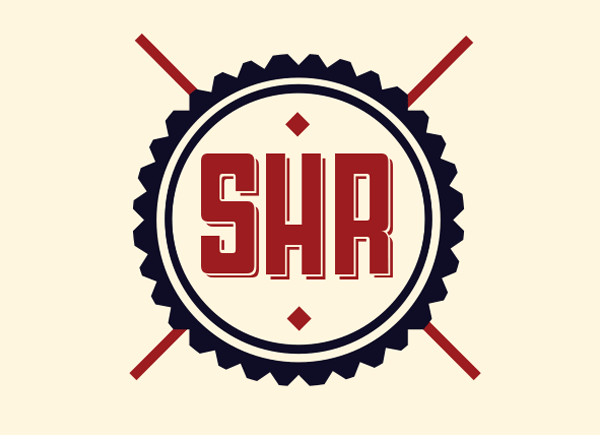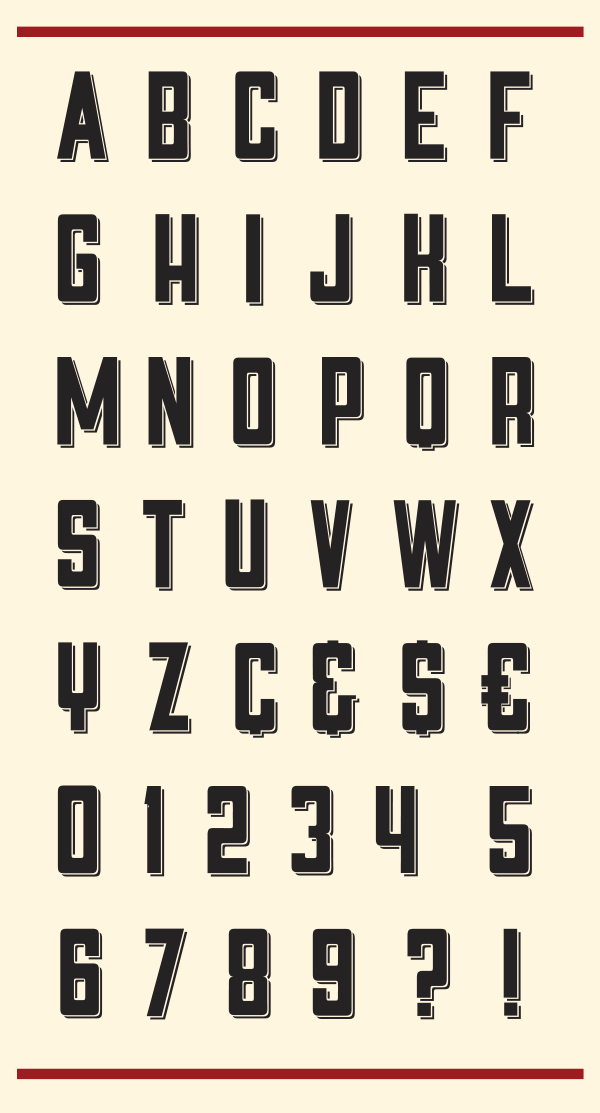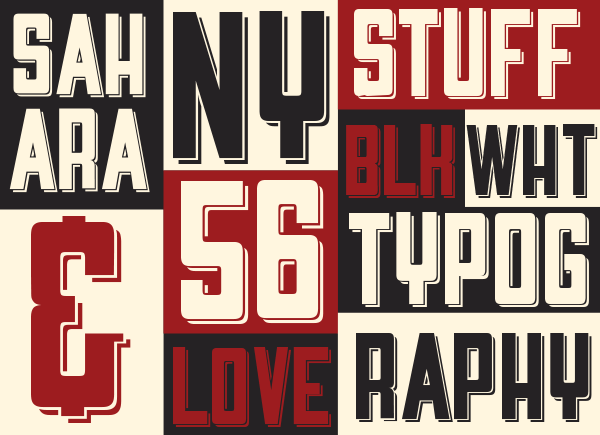
Sahara is a sans serif bolded modular display font with a shadow/3D effect added to it, the font was based on the tiltle of a film with the same name,from the late 20’s. Notice that our fonts are created as display typefaces, so our fonts come with what we consider the needed and usually used for this end.